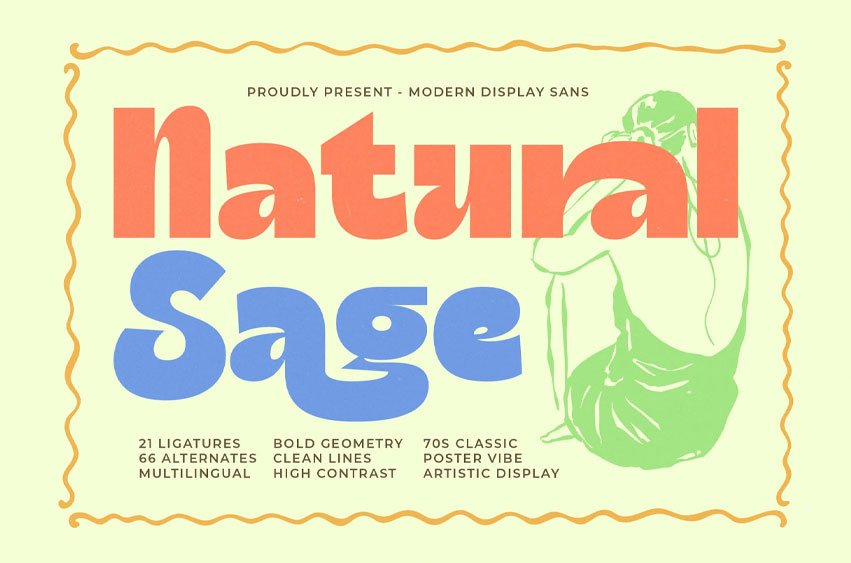
Natural Sage Font is a modern display sans inspired by 70s poster aesthetics—bold geometry, clean cuts, and playful curvatures that feel both artistic and contemporary. With 21 ligatures, 66 alternates, and multilingual support, this font is built for expressive branding, editorial headlines, packaging, retro-modern visuals, and creative layouts that need personality without losing clarity.
Its high-contrast structure and nostalgic color-flow style make it ideal for lifestyle brands, artistic campaigns, and standout typographic compositions.